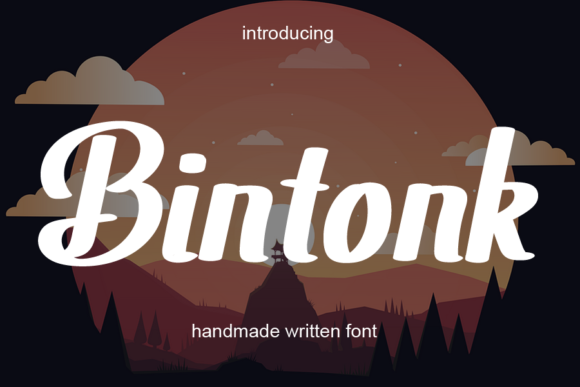
The Bintonk Font: A Cute and Friendly Companion for Your Creative Projects
I still remember the time I was working on a greeting card design project, and I just couldn’t seem to find the right font. My client wanted something fun, friendly, and playful, but everything I tried looked either too boring or too over-the-top. That’s when I stumbled upon the Bintonk font, and it instantly became my go-to choice. In this article, I’ll share my experience with Bintonk, its features, and how to make the most of it in your creative projects.
An Honest Review of Bintonk Font
Bintonk is a cute, fun, and friendly handwritten font that’s perfect for a variety of creative projects. Here’s what I love about it:
• ✨ Unique and playful character set: Bintonk has a distinct personality that’s both whimsical and charming.
• ✅ Highly legible: Despite its playful nature, Bintonk is surprisingly easy to read, making it perfect for body text and headlines.
• 🎨 Versatile: Bintonk works well in various design contexts, from digital designing to crafting, presentations, and greeting card making.
However, I did notice a few quirks:
• 🤔 Limited availability of stylistic alternates: While Bintonk has some great OpenType features, it’s not as extensive as some other fonts.
• ⚠️ May not work well in very small sizes: Bintonk’s playful nature can get lost in very small font sizes, so it’s best used in larger sizes.
The Backstory of Bintonk Font
Bintonk was designed by a talented type designer who wanted to create a font that captured the essence of childhood wonder. Inspired by playful scribbles and whimsical doodles, Bintonk was born. Today, it’s a popular choice among designers, crafters, and creative hobbyists.
What is Bintonk font best used for? Bintonk is perfect for creative projects that require a playful and friendly touch, such as crafting, digital designing, presentations, and greeting card making.
Does Bintonk have OpenType features? Yes, Bintonk has some OpenType features, including stylistic alternates and glyphs. However, the availability of these features may vary depending on the platform and software used.